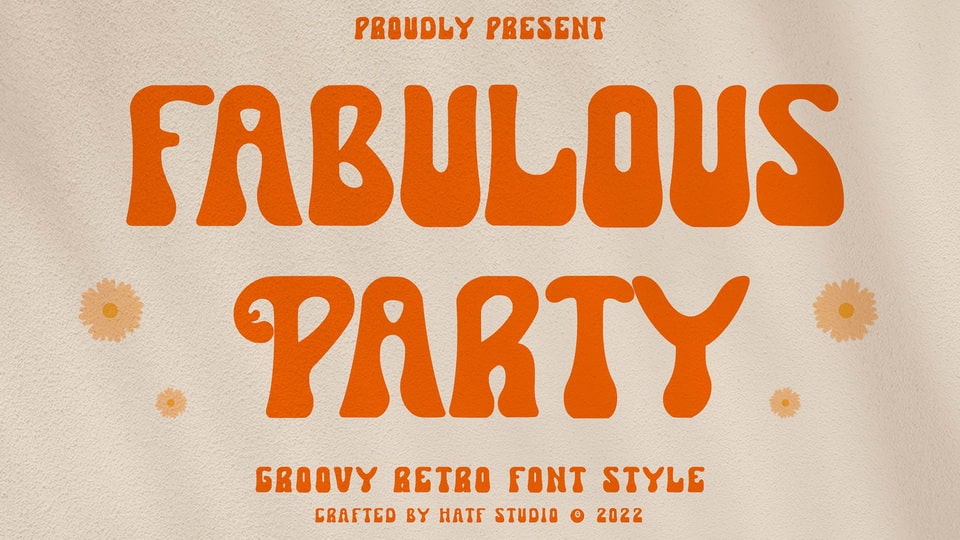
Download Fabulous Party font, a display typeface with a groovy retro style. With its distinctive handwritten characters Fabulous Party font is perfect for branding projects, logos, media posts, advertisements, product packaging, labels, and any project that needs a vintage touch.
Designer: HATF TYPE